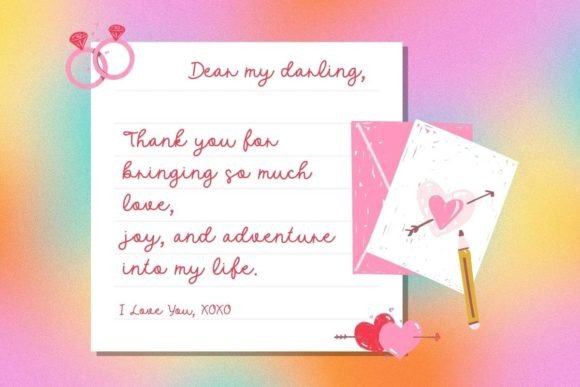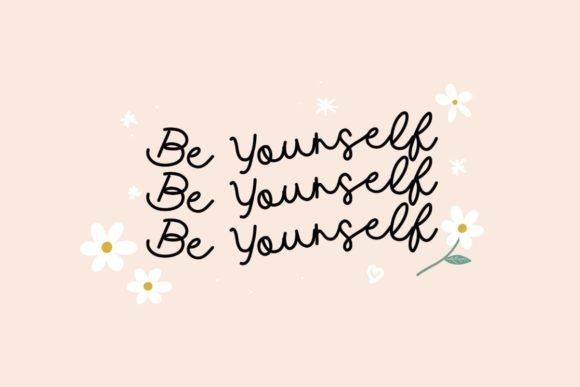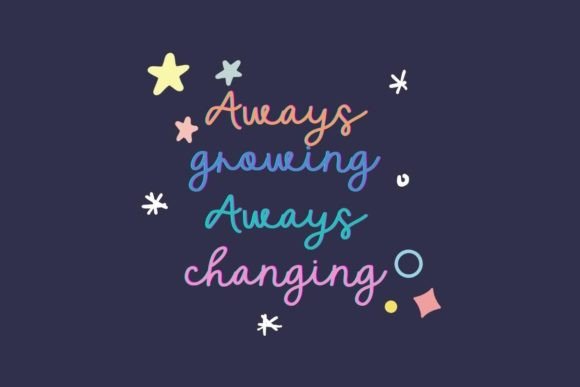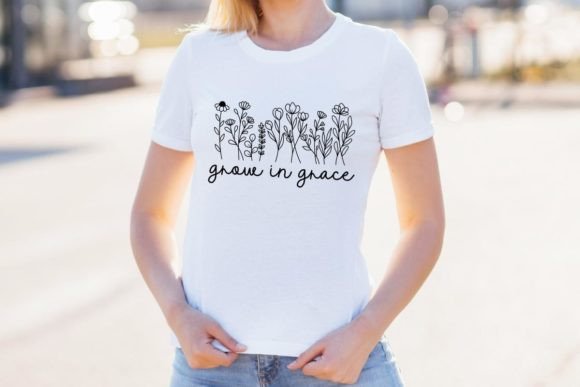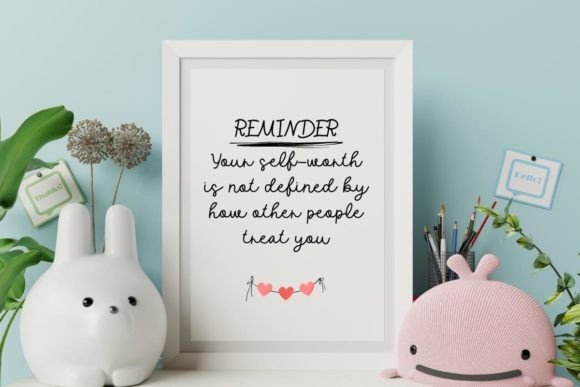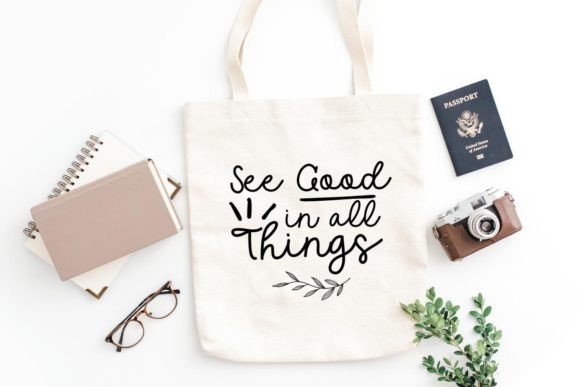
Bring a Touch of Whimsy to Your Designs
Have you ever sat at your desk, surrounded by scraps of paper, glue sticks, and colorful pens, trying to bring a special message to life? You’re not alone. Many designers, crafters, and creatives know the joy of adding a personal touch to their work. It’s in these moments that we discover the true magic of typography – the ability to convey emotions and connect with others through the written word.
Enter the Adorable Things Font, a stylish and simple typeface that brings a handwritten and cute look to your designs. This charming font is perfect for adding a touch of warmth and friendliness to your special occasions, from wedding invitations to heartfelt thank you cards. With its whimsical appeal, Adorable Things Font is a valuable asset for designers looking to create meaningful connections with their audience.
Adorable Things Font Key Features
- Font Family: Adorable Things Font is a unique, hand-drawn font that comes in multiple styles, including Regular, Italic, Bold, and Bold Italic.
- Unique Characteristics: The Adorable Things Font features a playful, whimsical design with hand-drawn elements and subtle imperfections, giving it a charming and personal touch.
Designer Review: Adorable Things Font
Overall, I think the Adorable Things Font has a lot of potential, but it also comes with some limitations. ✨ Here are a few things that work well:
- It’s super cute and playful, perfect for child-friendly content, birthday parties, or any other occasion that needs a cheerful touch.
- The font is highly customizable, with a range of styles and sizes to choose from, making it easy to tailor to your specific design needs.
- It’s also relatively easy to read, despite its playful appearance, which is a must for any font.
- The font can feel a bit over-the-top for more serious or professional content, which may not be the best fit for all designs.
- It may not be the best choice for body text, as it can be a bit too busy and distracting for longer passages.
- Some of the characters may not be as well-designed as others, which can be a bit jarring when using the font.
In terms of overall impression, I think the Adorable Things Font is a fun and versatile option that can add a lot of personality to your designs. While it may not be the best choice for every project, it’s definitely worth considering for the right occasion.
Use the Adorable Things font to add a touch of whimsy and playfulness to your designs. Pair it with bold, bright colors to create a eye-catching visual effect.
- Children’s book covers and illustrations